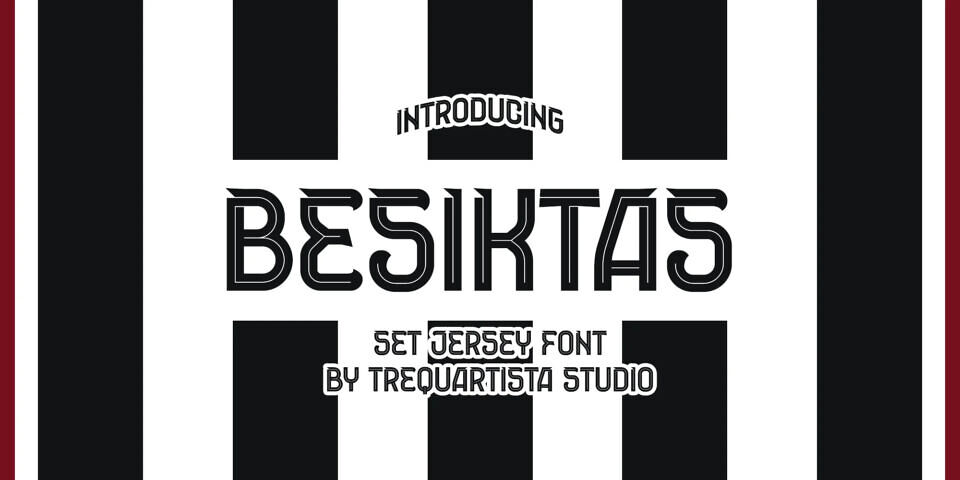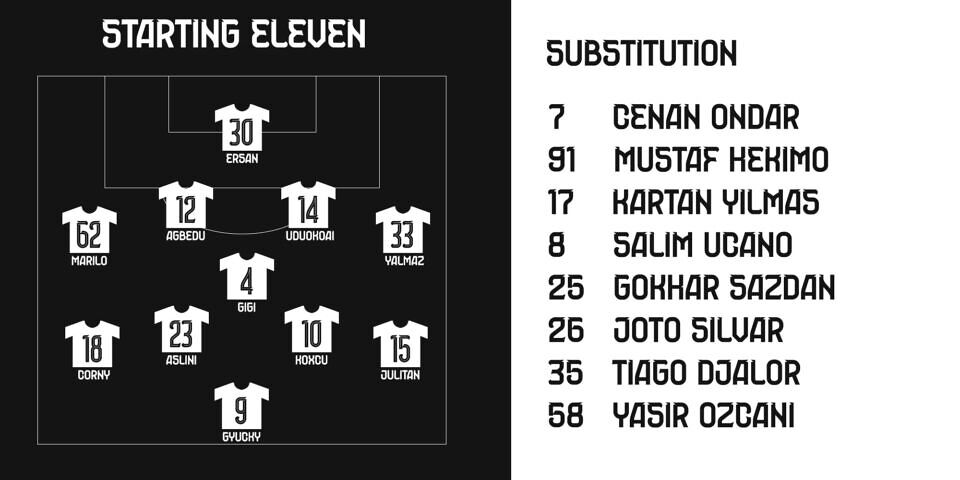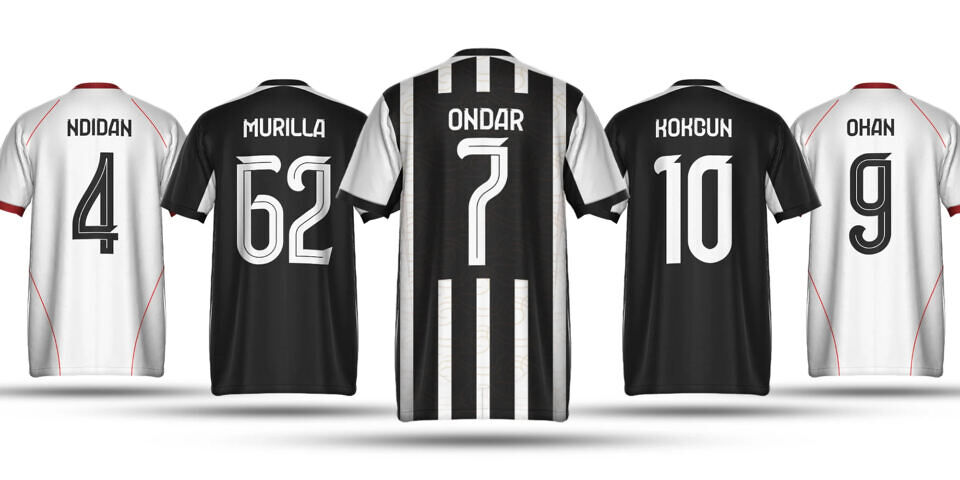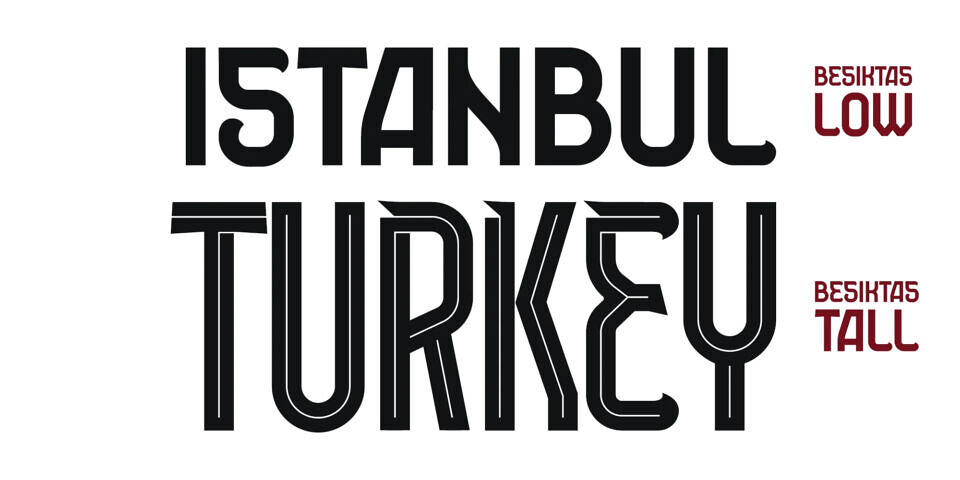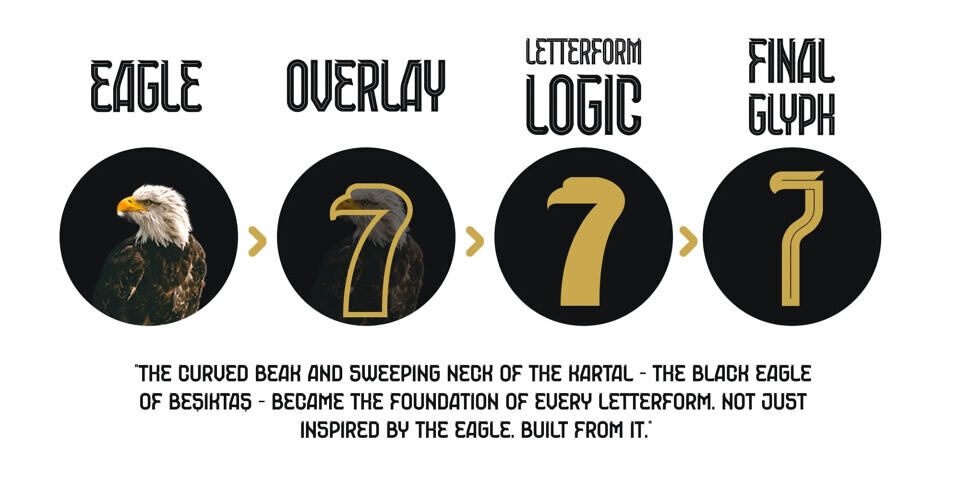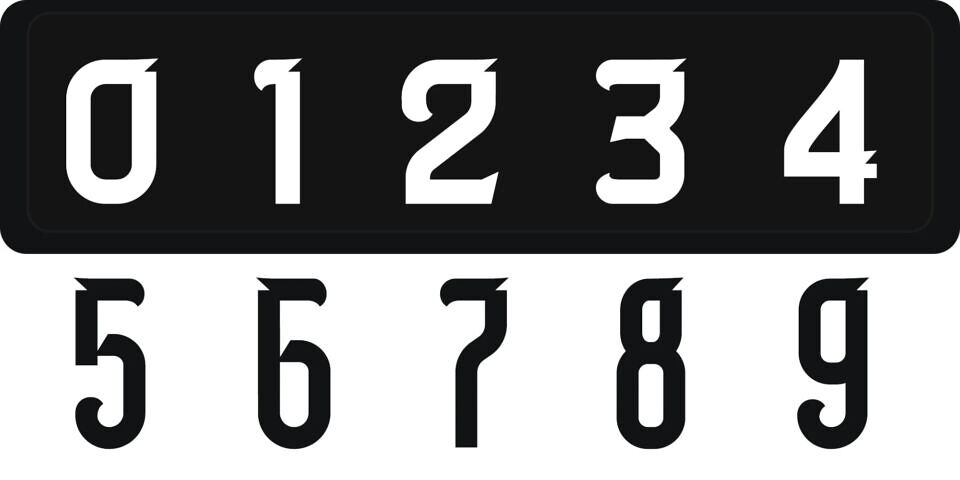
Besiktas Font Family
Besiktas is a bold jersey-inspired display typeface inspired by the maritime soul of Istanbul’s historic coastal district — the Bosphorus shoreline, dense urban streets, passionate football culture, and the timeless energy of the city.
Designed for sports identities and modern visual systems, Besiktas comes with multiple expressive styles — including Tall, Inline, and Kartal variations — giving designers the flexibility to create authentic jersey designs, team identities, and impactful sports visuals.